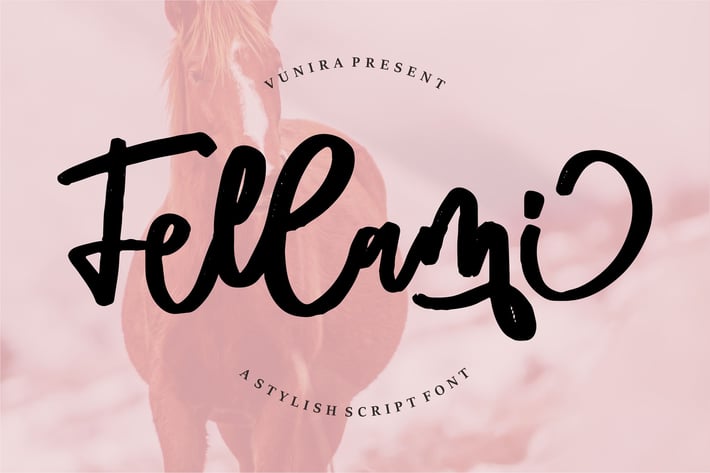
Fellami | A Stylish Script Font
Fellami | A Stylish Script Font with a calligraphy style, So beautiful on invitation like greeting cards, branding materials, business cards, quotes, posters, and more!